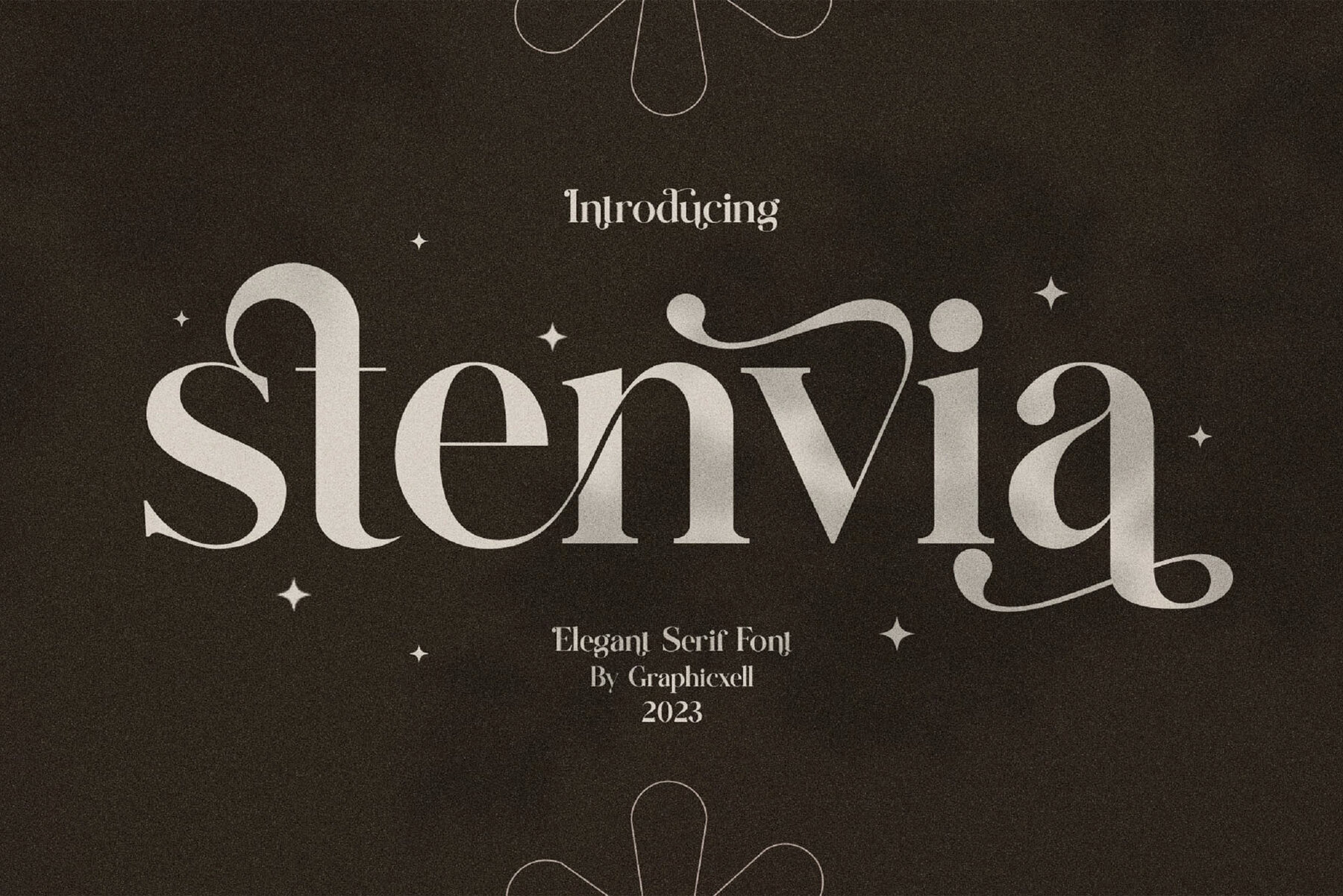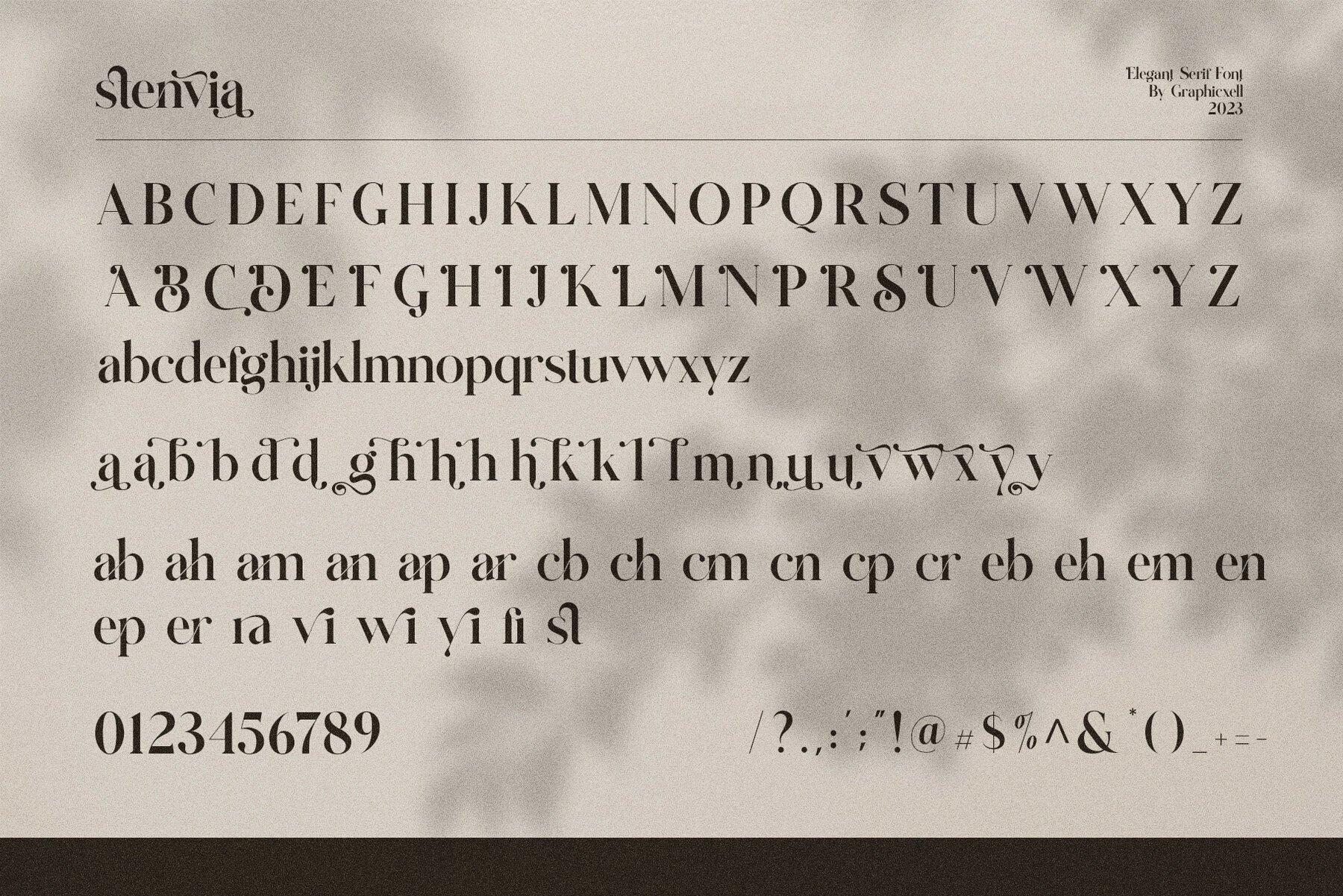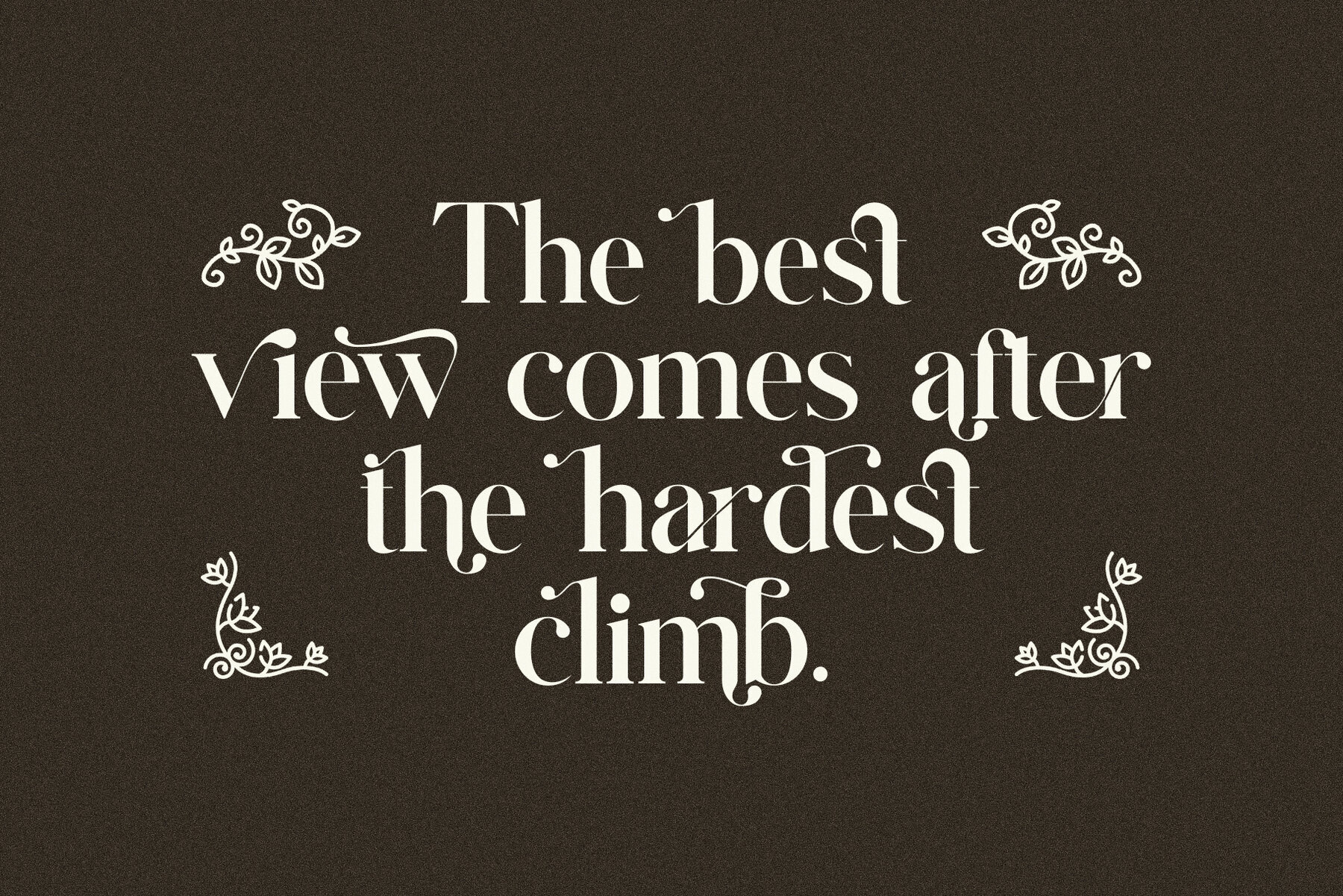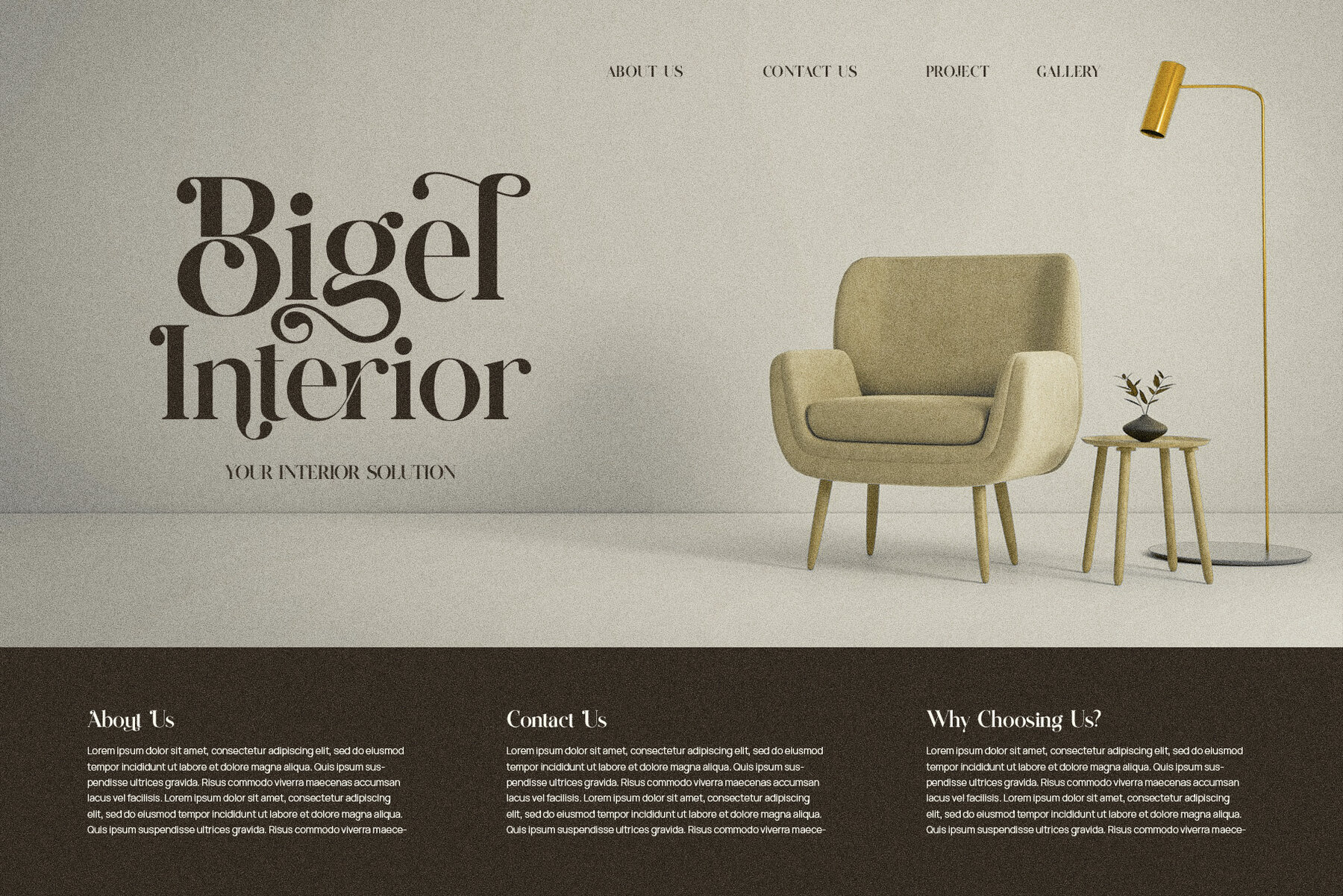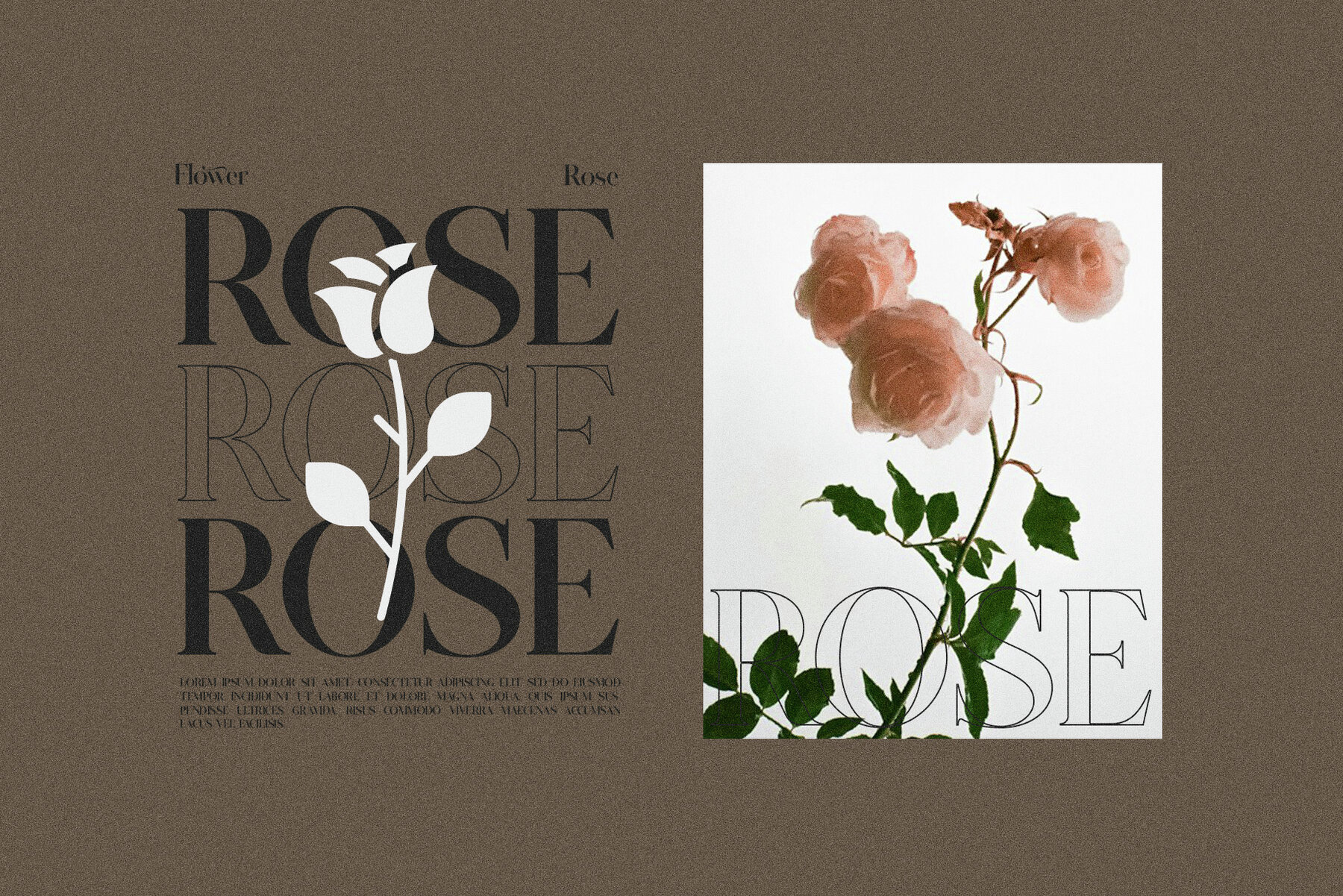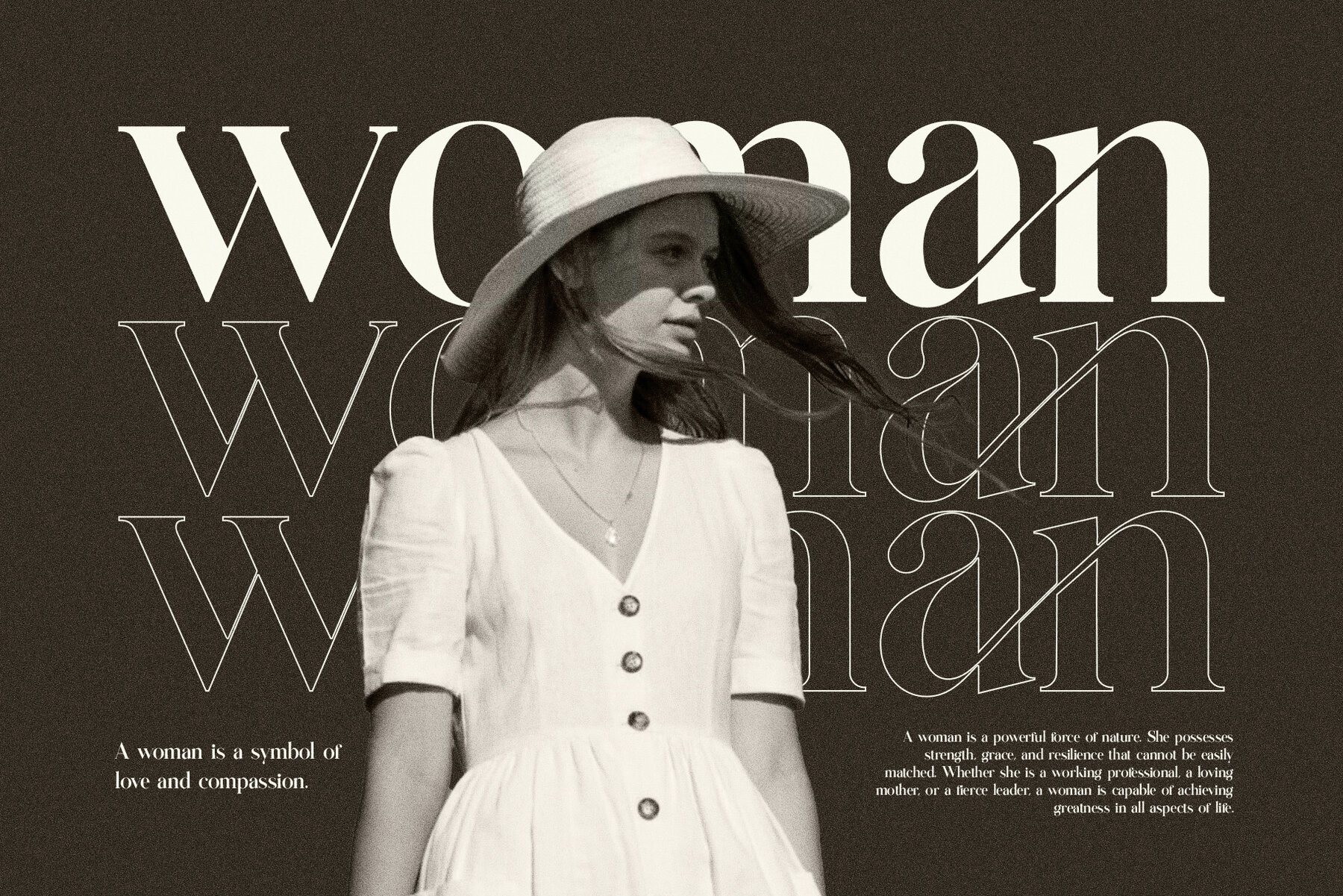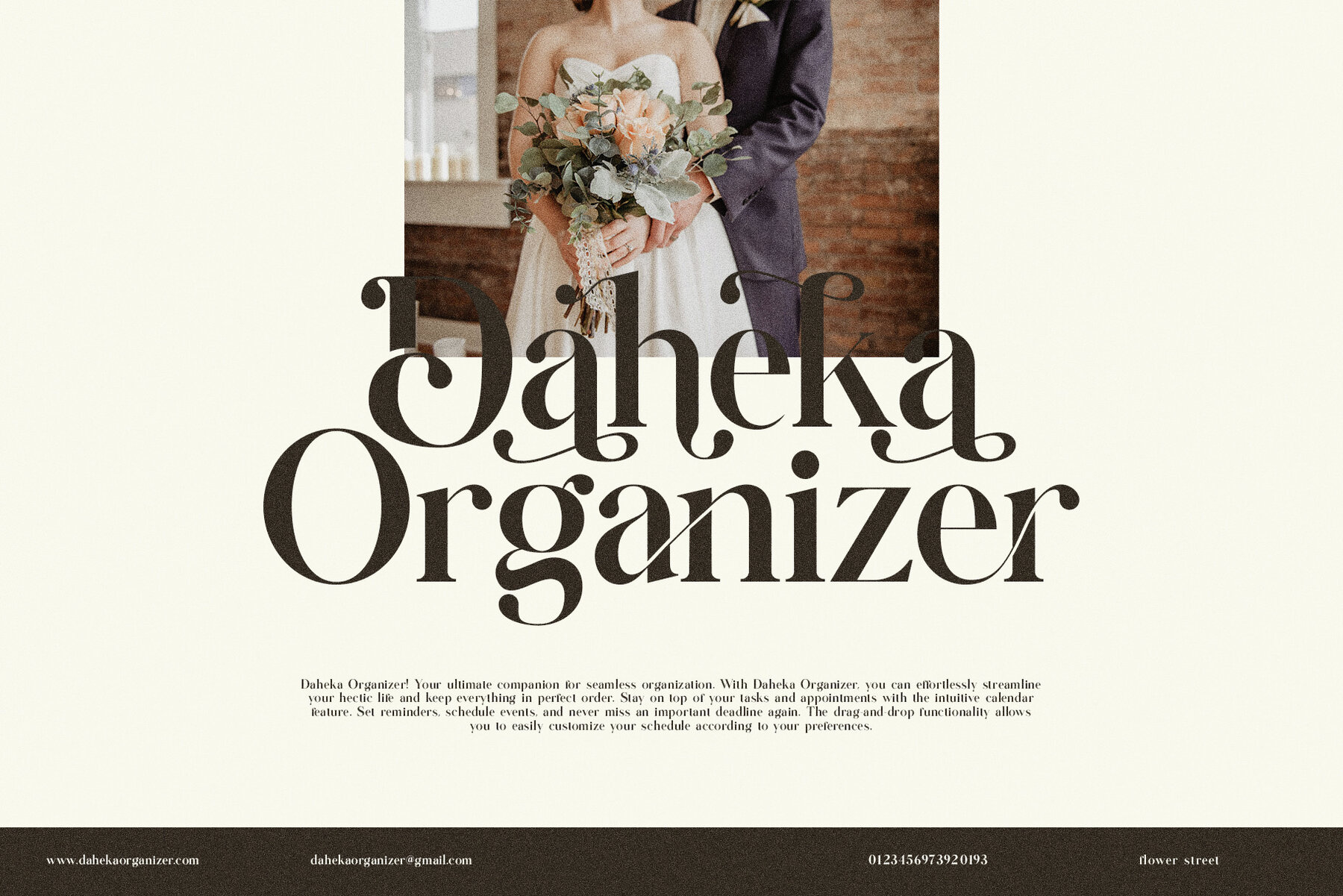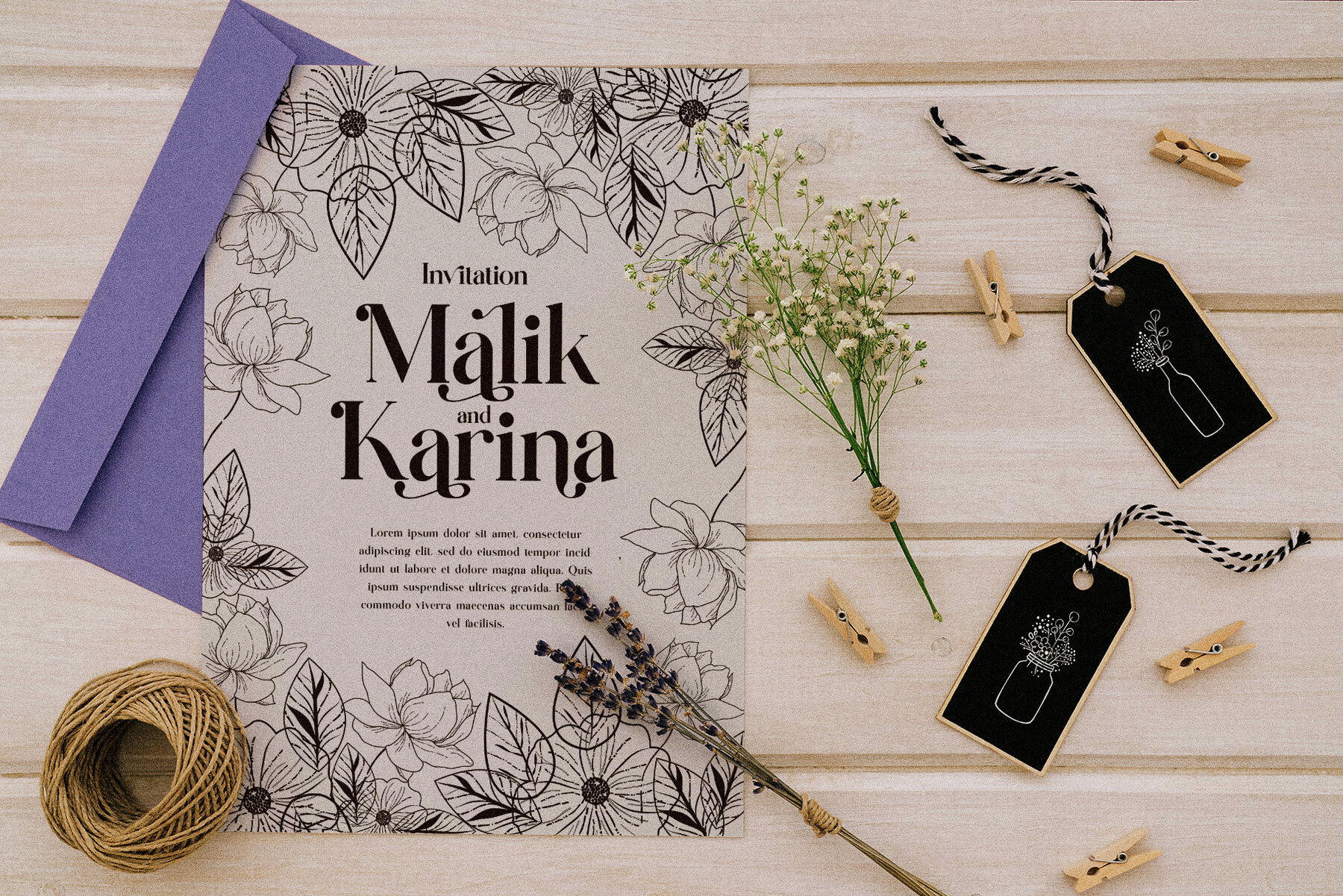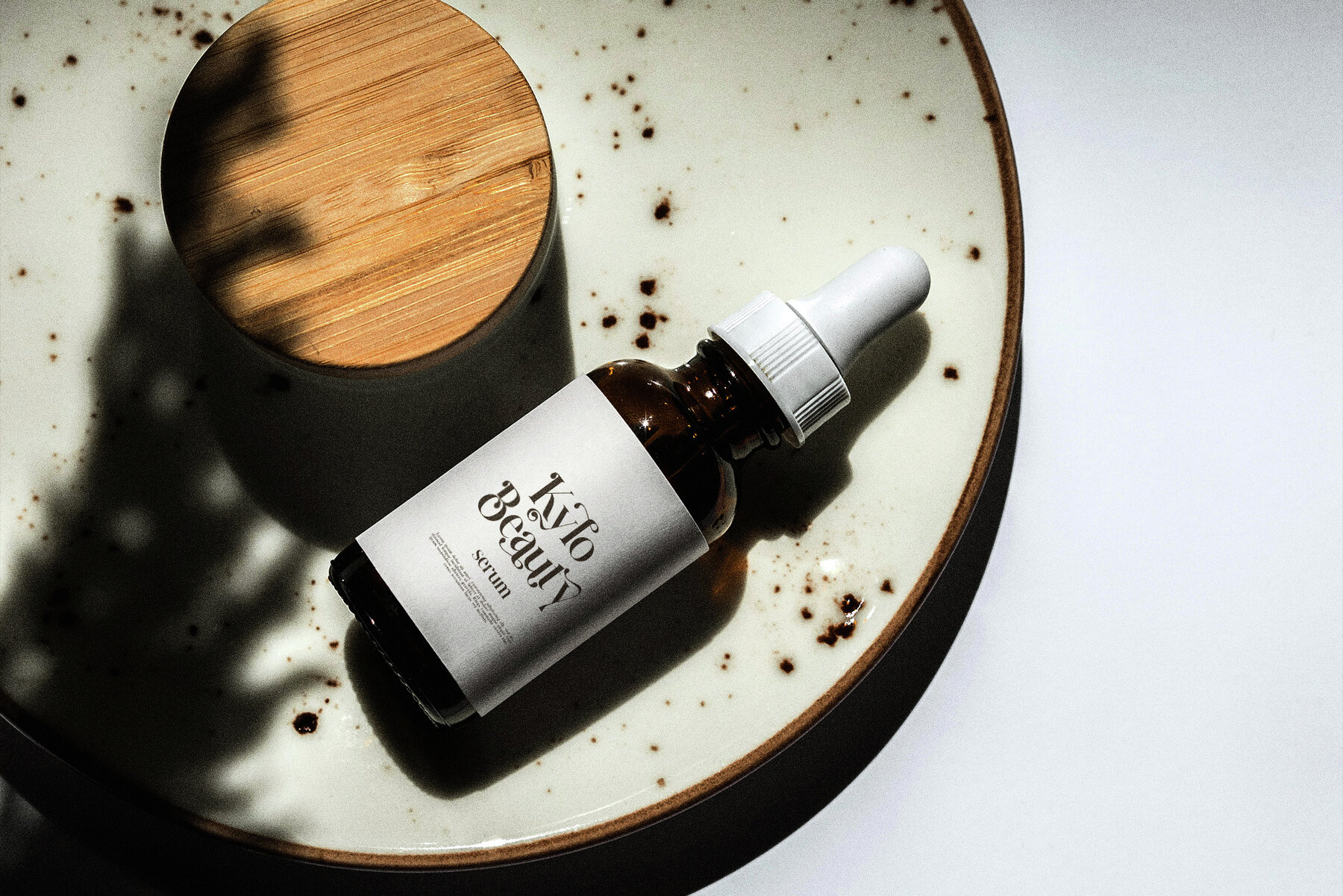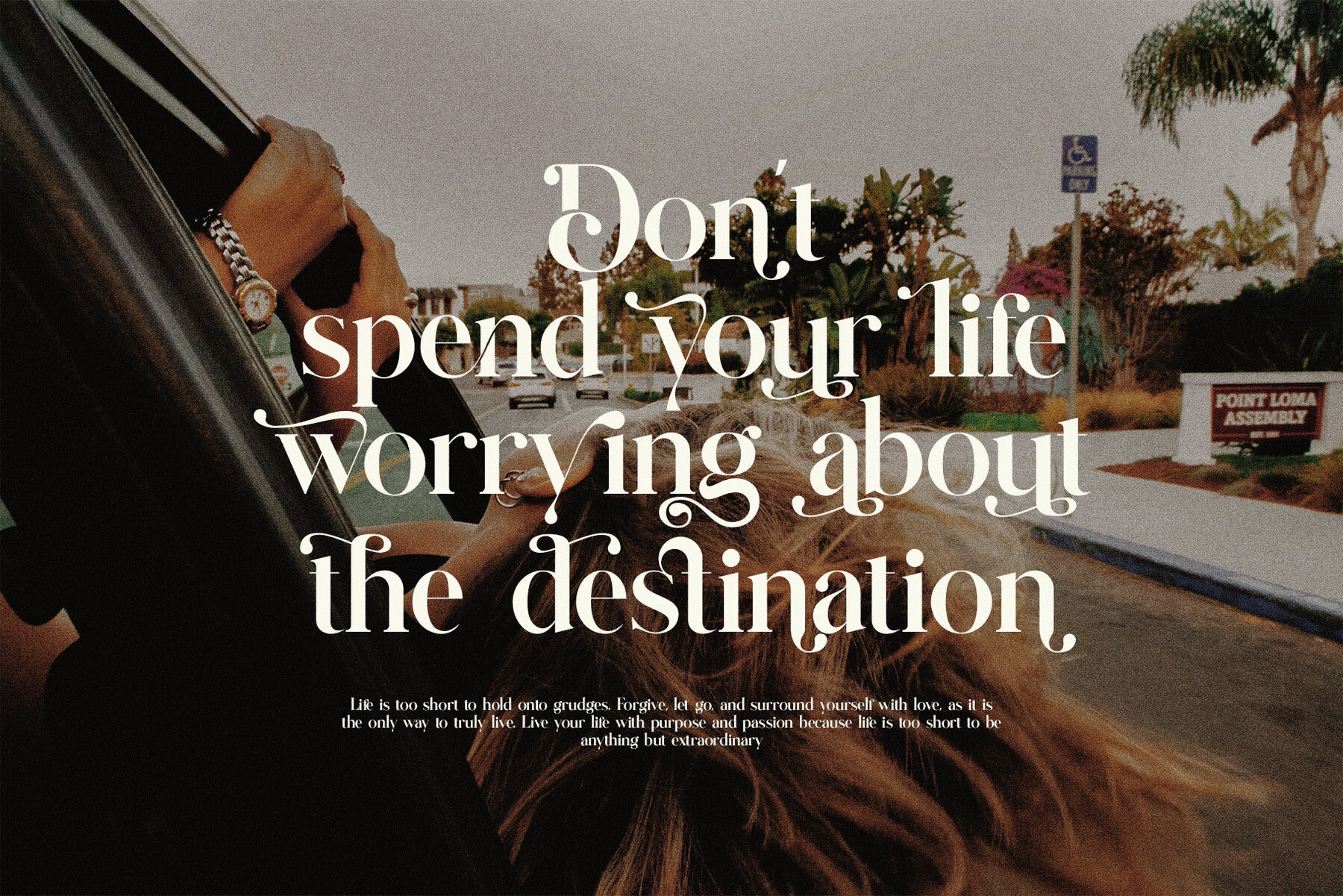
Stenvia Font
Stenvia Regular
Stenvia is a unique and elegant serif typeface perfect for a wide range of design projects. Combining sophistication with a modern edge, this font enhances branding and logo designs effortlessly. Ideal for branding projects, wedding designs, social media posts, advertisements, product packaging, and more, Stenvia offers high readability and a timeless appeal. Stenvia is recommended for use in Adobe Illustrator or Adobe Photoshop. This font is designed to meet your creative needs, delivering both style and readability. For any inquiries, feel free to reach out for assistance.Stenvia: An Elegant Serif Typeface for Versatile Branding